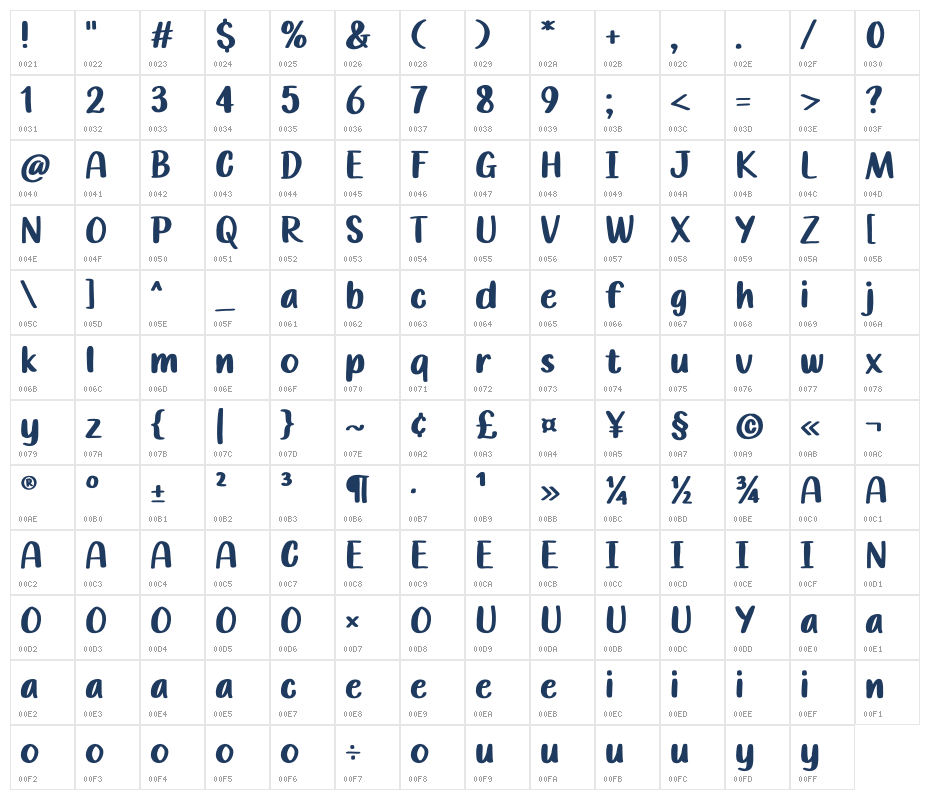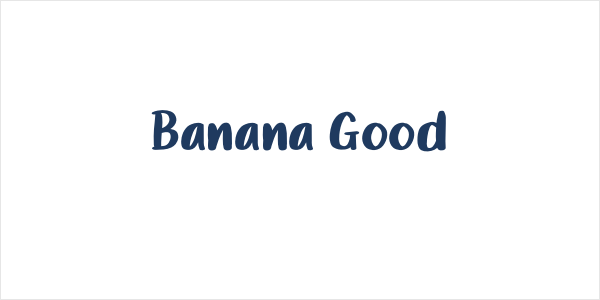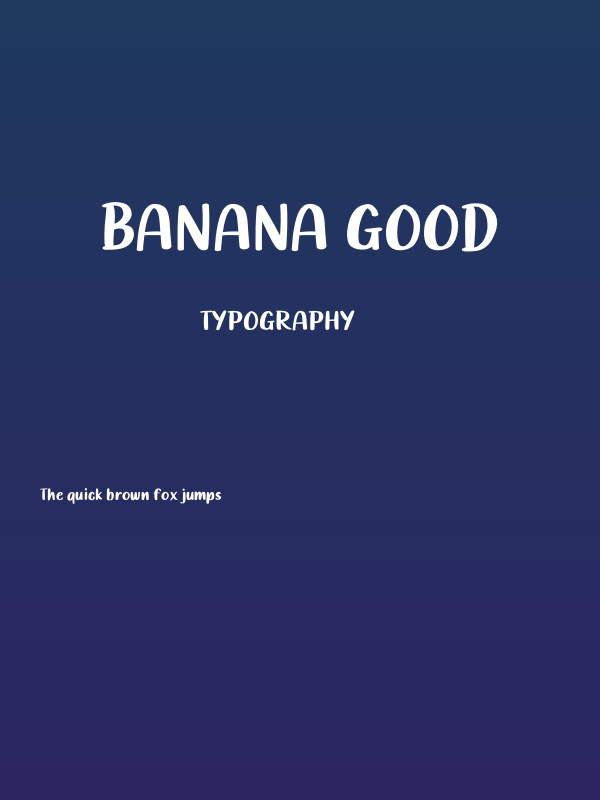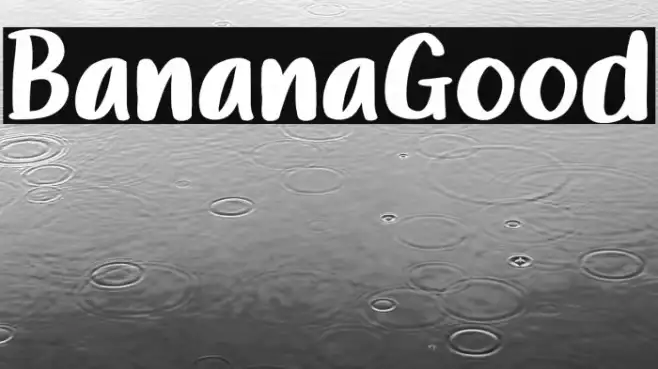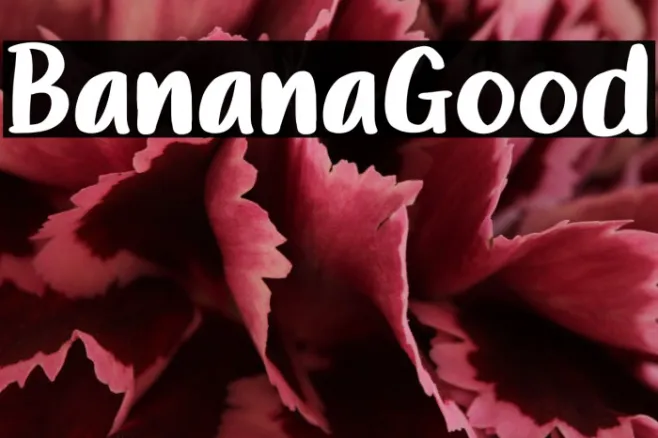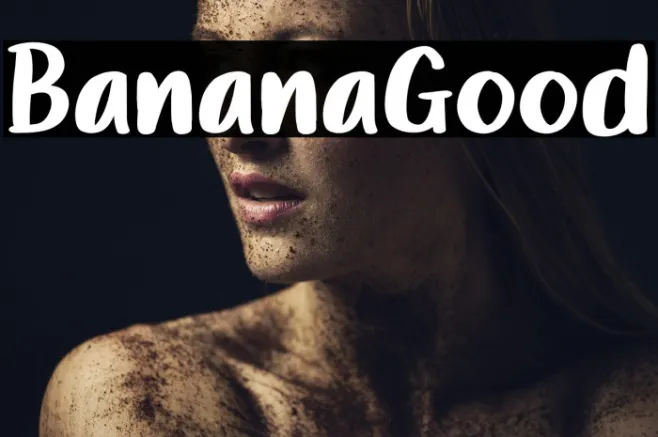
Banana Good Font
Banana Good Description
A playful, rounded, handwritten style font with bold, smooth curves and a casual appearance.
| Overall Style | Casual, Friendly, Playful |
| Use Case | Headlines, Logos, Posters, Children's materials |